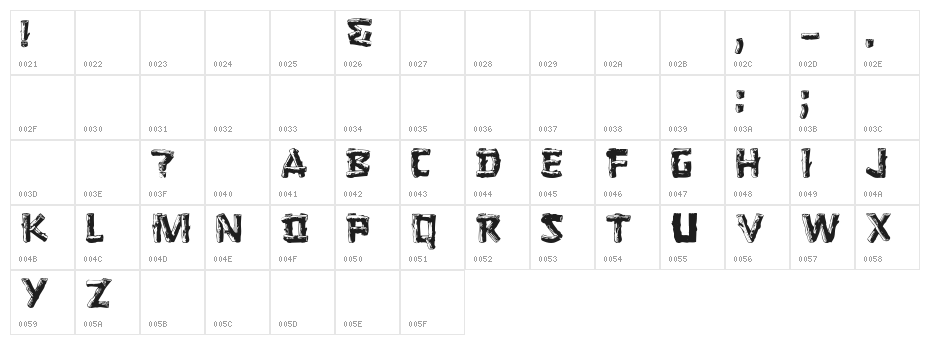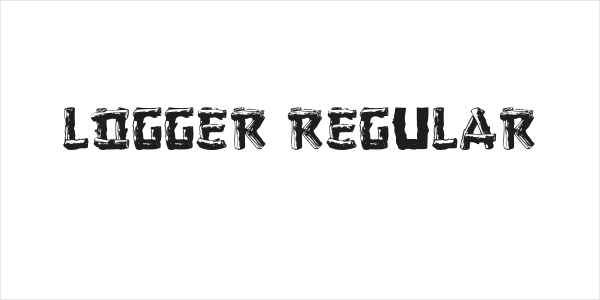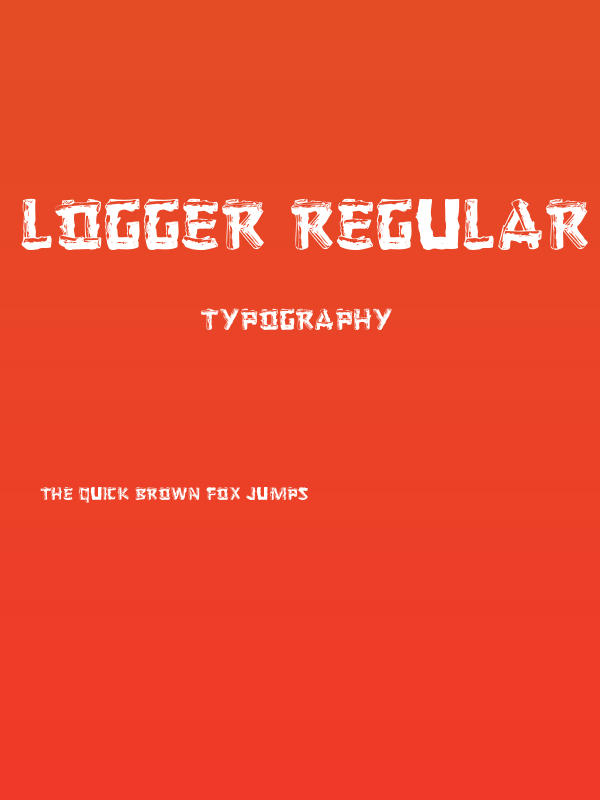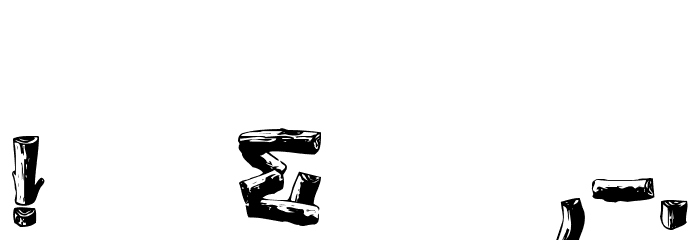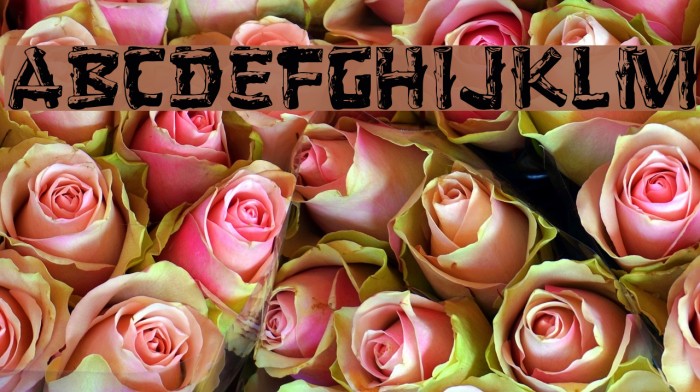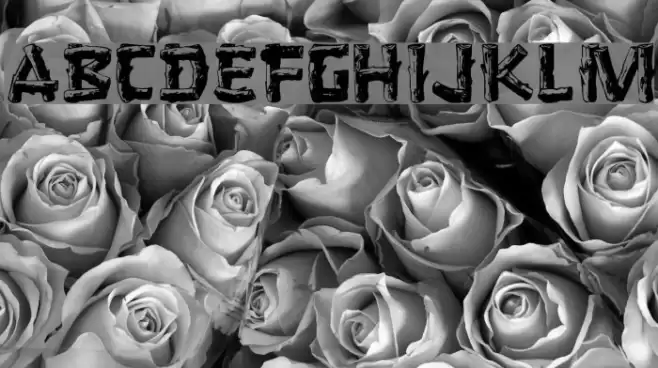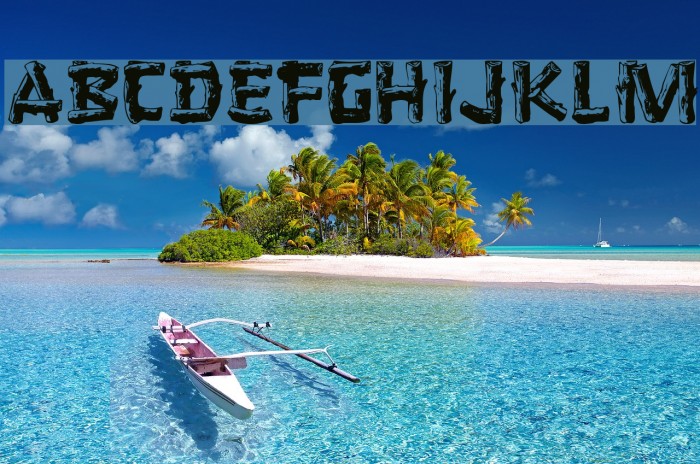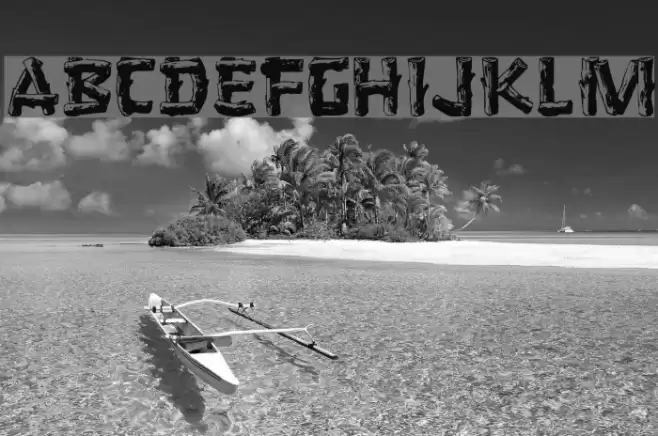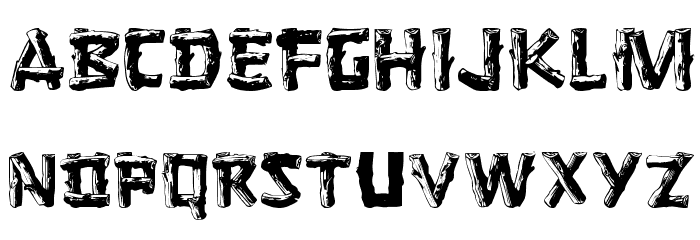
Logger Regular Font
Logger Regular Description
This font features a rugged, textured appearance reminiscent of hand-carved wood or rough-hewn logs. Each character is uniquely distressed, giving it a natural, organic feel. The bold, blocky letters are unevenly shaped, with jagged edges and irregular surfaces that suggest a rustic, outdoorsy aesthetic. This style is highly decorative, capturing the essence of nature and craftsmanship. The font's distinctive look makes it ideal for projects that require a strong, earthy presence, such as outdoor adventure branding or artisanal product packaging.
| Overall Style | Rustic, Decorative |
| Use Case | Logos, Headlines, Posters |
| Proposed Projects | Ideal for outdoor adventure branding, artisanal product packaging, and rustic-themed designs. |